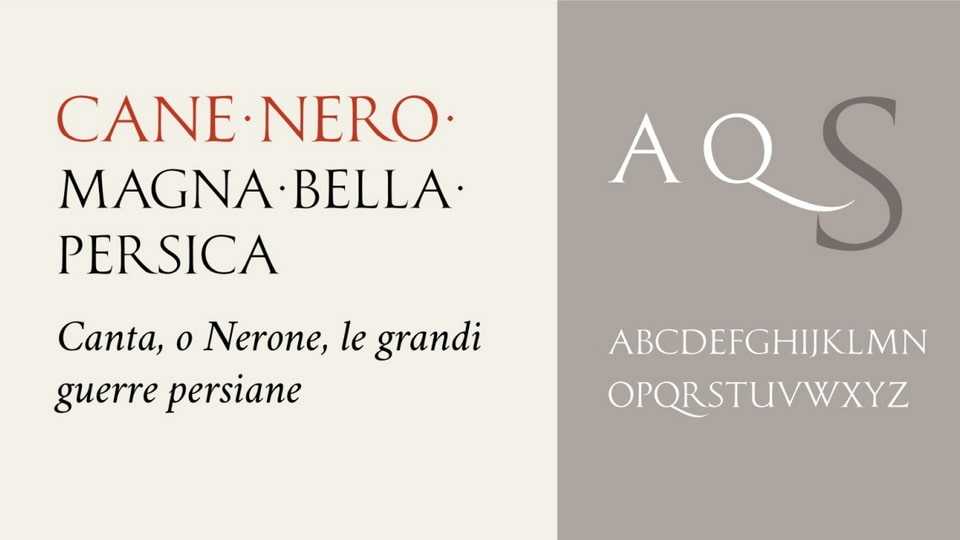
Download Cane Nero font, a serif typeface inspired by the timeless elegance and classical style of Roman inscriptions. Cane Nero font is crafted to revive the graceful lines and geometric precision of ancient Roman engravings, evoking a sense of history and grandeur.
Designer: Michele Casanova